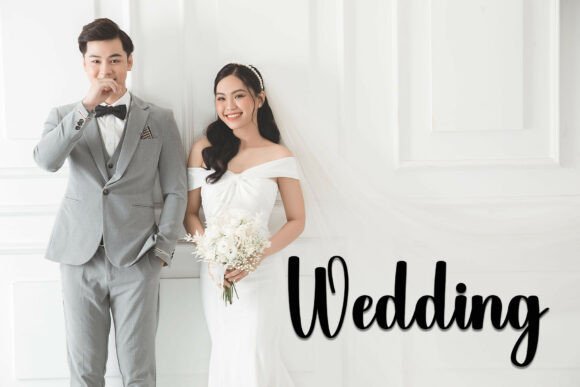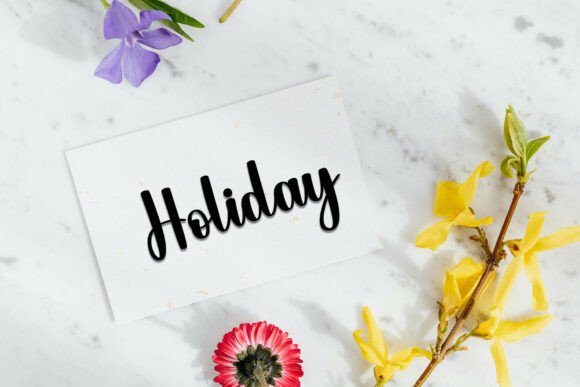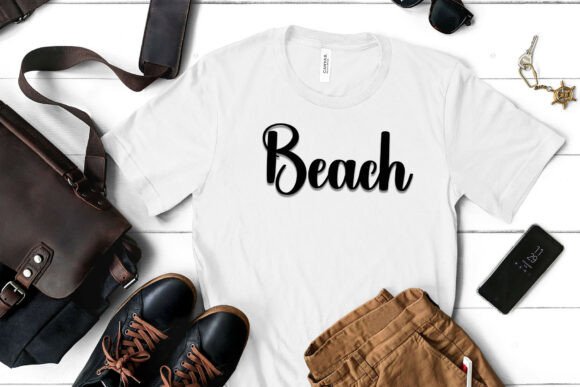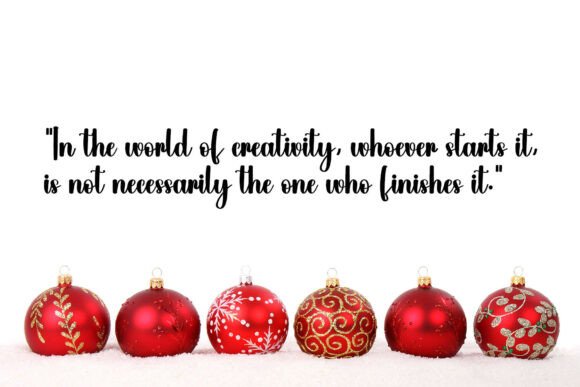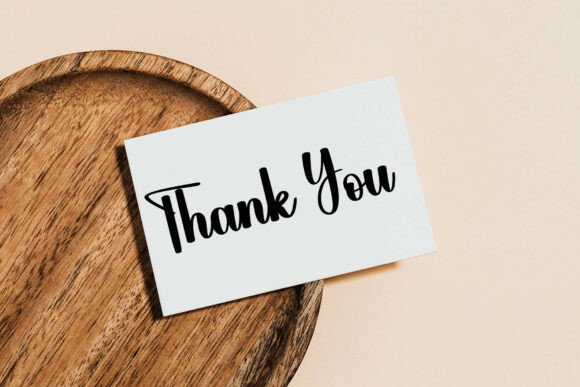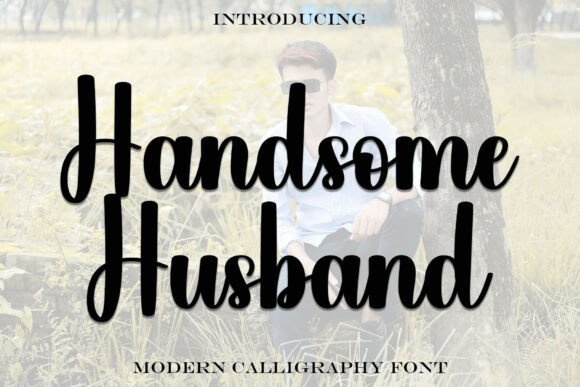
The Perfect Script for Your Next Design
As designers, we’ve all been there – staring at a blank canvas, waiting for the perfect font to bring our creative vision to life. And then, it hits us – that perfect blend of style and elegance that makes our design pop. For many of us, that moment comes when we discover the Handsome Husband Font.
This modern calligraphy font is more than just a pretty face – it’s a versatile script that’s perfect for logos, wedding invitations, personal branding, and social media designs. With its smooth curves and balanced contrast, it adds a touch of contemporary elegance to any design. The hand-drawn feel gives it a warm, personal touch, while the clean structure keeps it professional and easy to read. Whether you’re a seasoned designer or just starting out, the Handsomehusband Font is a valuable addition to your toolkit.
Handsomehusband Font Key Features
• Font Family: Handsomehusband, with 4 styles – Regular, Italic, Bold, and Bold Italic
• Unique Characteristics: Distinctive rounded edges, elegant curves, and refined details create a sophisticated and stylish look
Handsomeson – A Stylish yet Somewhat Limited Font
When I first stumbled upon the Handsomehusband Font, I was immediately drawn to its charming, vintage vibe ✨. The intricate details and flourishes add a level of sophistication that’s hard to resist. It’s perfect for projects that need a touch of elegance, such as wedding invitations or luxury branding.
Here are some things that work well about this font:
• Unique, stylish design ✨
• Perfect for projects that need a vintage or elegant touch
• Works well in both print and digital applications
• ⚠️ Limited character set: I found some characters to be missing or inconsistent, which can be frustrating for designers who rely on complete font sets.
• ⚠️ Not ideal for large blocks of text: The font’s intricate details can make it difficult to read when used extensively.
Overall, I’d say the Handsomehusband Font is a great addition to any designer’s toolkit – as long as you’re aware of its limitations and use it in contexts where its strengths shine through.
Tips for Getting the Most Out of Handsomehusband Font
For optimal results, use Handsomehusband Font for headings and titles. It pairs well with serif fonts for body text. Experiment with different font sizes and styles to achieve a balanced look.
Handsomehusband Font is ideal for:
– Branding and marketing materials
– Digital signage and advertising
– Print materials such as business cards and brochures
Alternatives to Handsomehusband Font
Playfair Display is an elegant and luxurious serif font. It’s ideal for use in titles, headings, and other high-impact text where a touch of sophistication is needed. Its classic design and high contrast make it perfect for creating a sense of grandeur.
Playfair Display is more ornate and luxurious compared to Handsomehusband Font. While Handsomehusband Font has a more modern and clean feel, Playfair Display has a classic, vintage vibe that’s perfect for luxury branding and high-end design projects.
Merriweather is a classic serif font with a timeless feel. It’s suitable for use in body text, headings, and titles where a traditional look is desired. Its sturdy design makes it perfect for creating a sense of stability and trust.
Merriweather is more classic and traditional compared to Handsomehusband Font. While Handsomehusband Font has a more modern and edgy feel, Merriweather has a warm and inviting vibe that’s perfect for creating a sense of familiarity and comfort.
Montserrat is a modern sans-serif font with a strong, geometric feel. It’s ideal for use in titles, headings, and body text where a clean and minimalist design is desired. Its urban, industrial vibe makes it perfect for creating a sense of modernity and sophistication.
For optimal readability, we recommend using a font size between 12 and 18 points, with a line height of at least 1.2 to 1.5 times the font size. This will ensure that the text is easy to read and visually appealing.